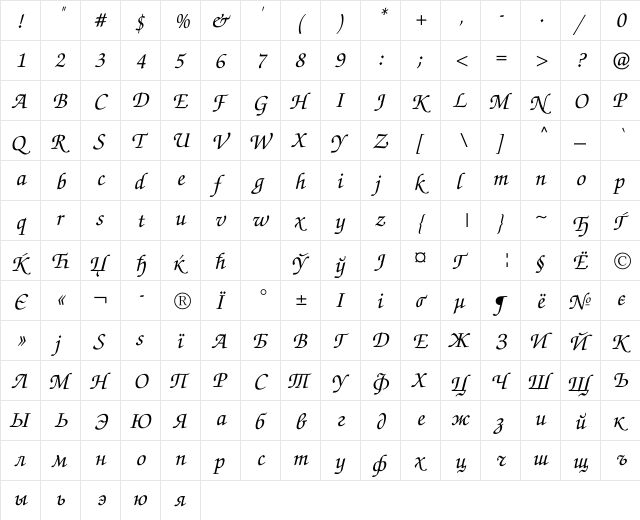
ZapfChanceryCTT Regular
Design Context for ZapfChanceryCTT Typeface
ZapfChanceryCTT is a composed and adaptable typeface that performs quietly and consistently across a wide range of design contexts.